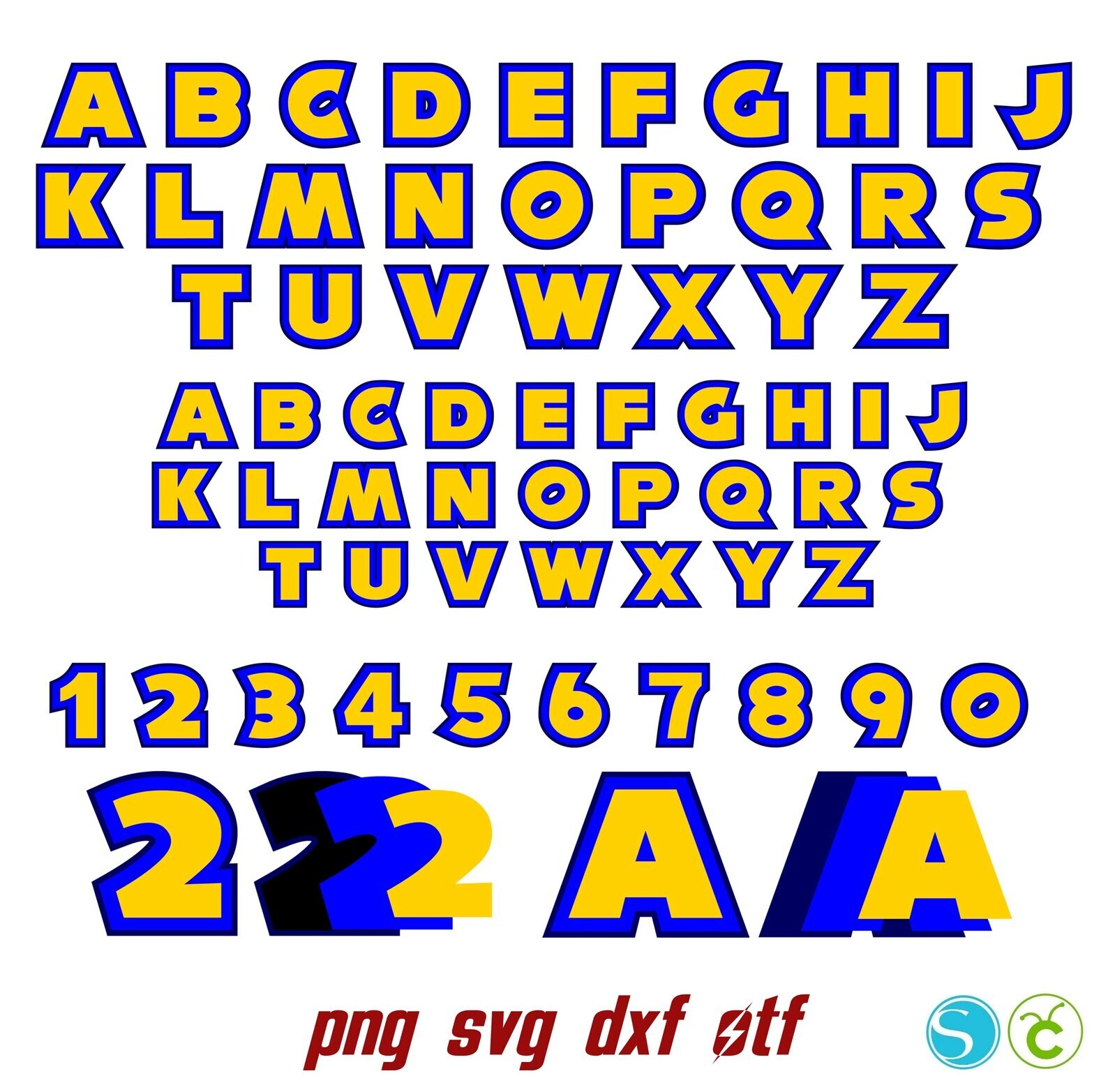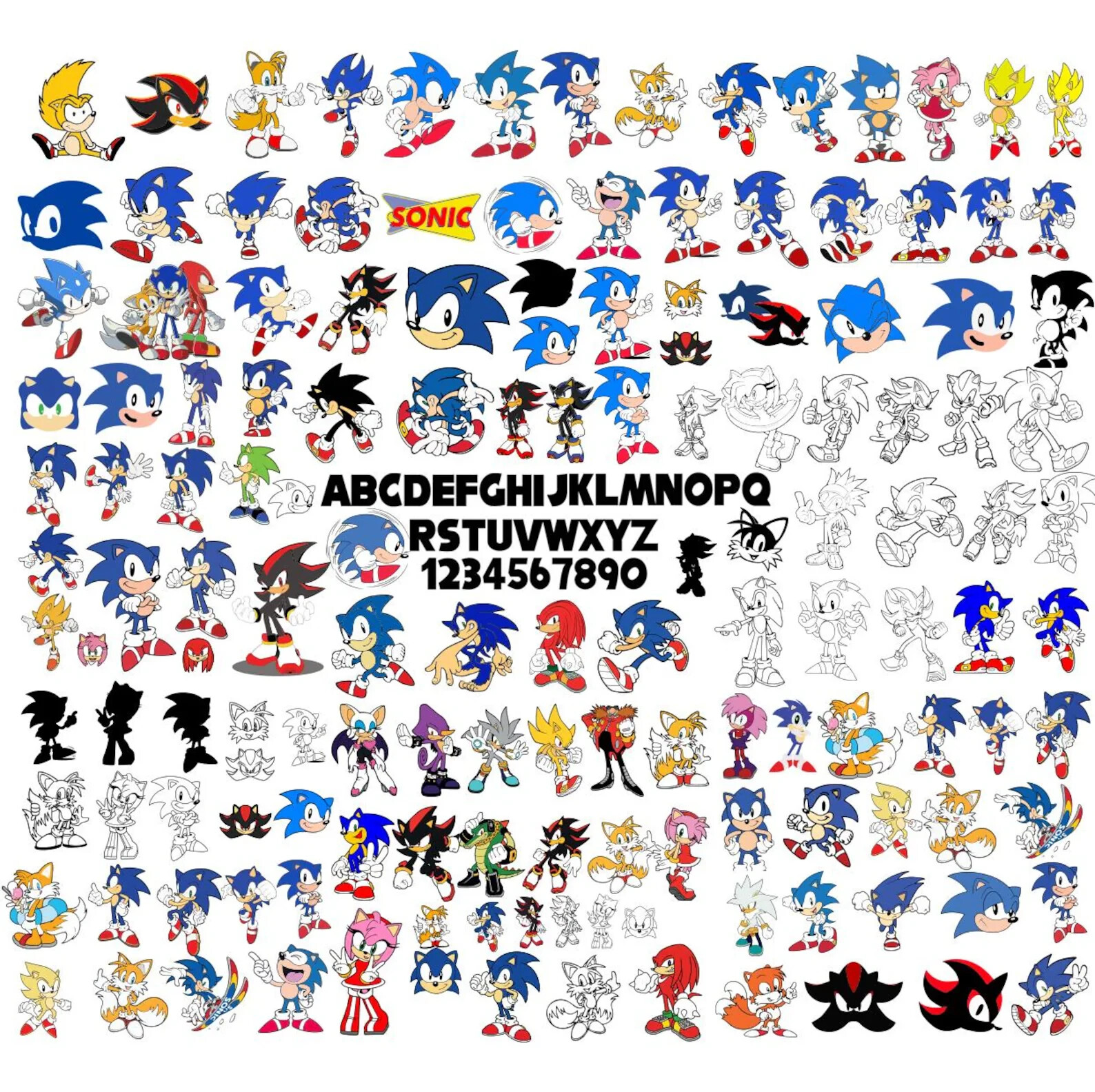
Choosing texture font design assets usually boils down to one question: do you want a narrowly themed lettering pack, or a broad library of fonts and graphics? These four digital bundles cover both, with listed prices spanning USD 3.00 to USD 9.89. Each is offered as a digital download, so the real trade-off is simply how much variety you need and how specific your project is. If you make Sonic birthday shirts, a dedicated SVG font bundle might be enough. If you run a print shop or creative side business, a larger multi-purpose collection could make more sense. This guide compares the four packs by what they include and which project type each one fits.
- The Sonic-themed bundle is the lower end of the price range and the most specialized choice if you need Sonic-style letters, SVGs, and an installable font.
- The Ultimate Digital Mega Bundle is the multi-asset option, combining fonts, clipart, SVG, and coloring-book pages in one download.
- The 25,000+ Premium Fonts Bundle is the most typography-focused package, with a huge font count and commercial-use permission in the title.
- The 100GB Graphics Mega Bundle is the broadest overall collection, aimed at designers who want templates, logos, and fonts together.
| Sonic-themed birthday shirt, layered vinyl, or Cricut letters | Sonic Bundle |
| Mix of fonts, clipart, SVG, and printable coloring pages | Ultimate Digital Mega Bundle |
| Typography-heavy work like logos, invitations, or branding | 25,000+ Premium Fonts Bundle |
| Broad template, logo, and font library for client work | 100GB Graphics Mega Bundle |
Sonic Bundle, Sonic Svg Cricut, Sonic Font, Sonic Letters Svg, Sonic Birthday
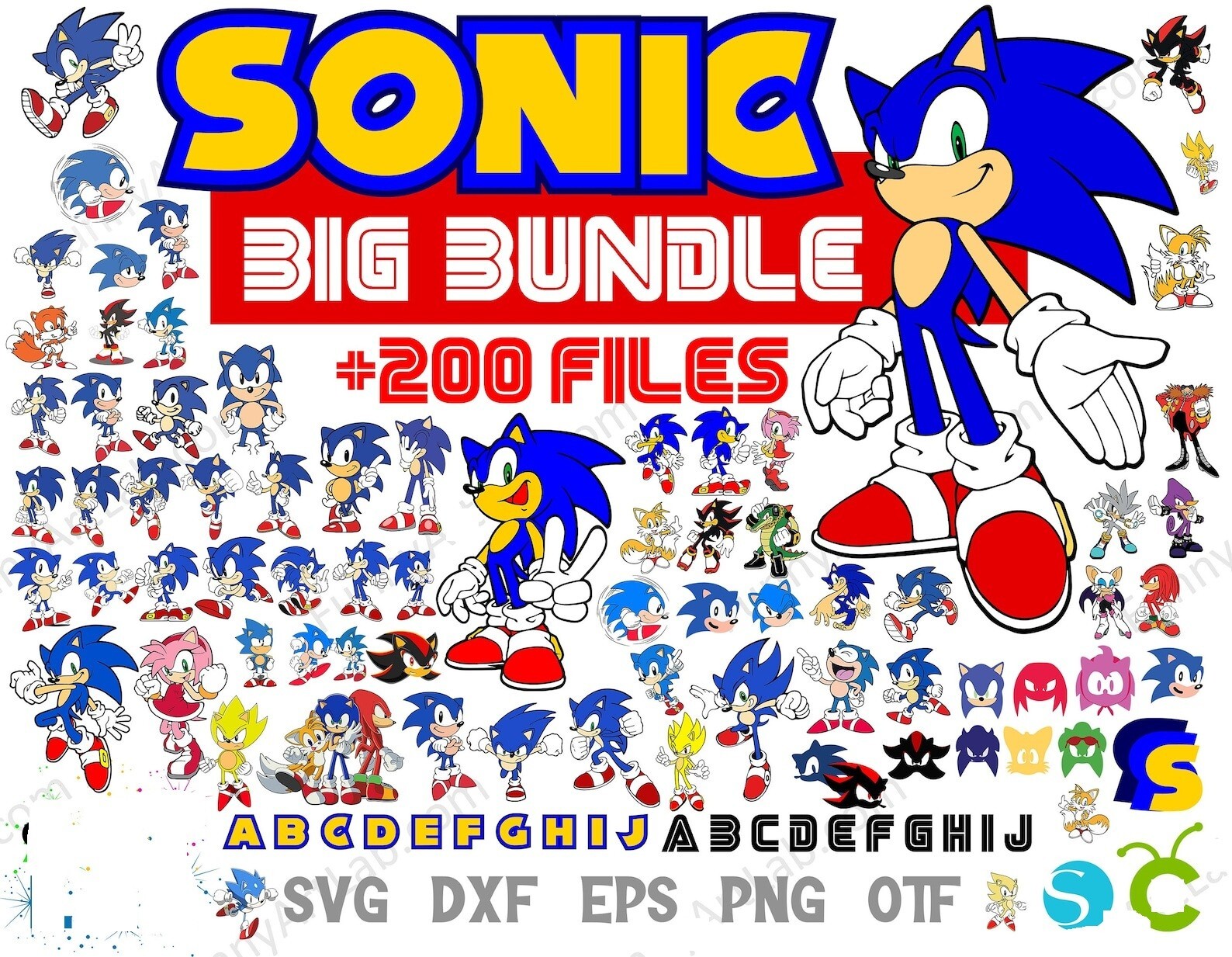
Start here if your project has a clear Sonic identity. This is the most narrowly focused pack in the group, and its description centers on a set of +200 SVG files, +200 PNG files at 300 dpi, +100 DXF files, +70 supporting files, and two OTF fonts. That combination makes it a practical fit for a Sonic birthday shirt, layered design, or vinyl project where you want matching lettering. The trade-off is the scope: it is a themed lettering set rather than a general design library, so you'll get Sonic-style assets but not a wide typography collection for other branding work.
Ultimate Digital Mega Bundle | Fonts + Clipart + SVG + Coloring Books
If you need multiple asset types in one download, this is the balanced pick. The bundle brings together clipart, coloring-book pages, premium fonts, and an SVG collection, which makes it useful for Etsy printables, small-business graphics, or content creation where you might switch between different file formats. The package is defined by its mix rather than a specific font count, so it is better suited to a creative who wants a varied stash than to someone who specifically needs a massive typography library. For a creator starting a side project, the categories are the real selling point.
25,000+ Premium Fonts Bundle, Commercial Use Allowed, Digital Download
If typography is the main need, this bundle is the one to compare against. The title alone promises 25,000+ fonts with commercial use allowed, and the description lists styles from script and serif to handwritten, brush, vintage, and decorative fonts. That makes it a strong fit for logo concepts, wedding invitations, branding, or print-on-demand designs where variety matters more than other assets. The main limitation is the focus: this listing is concentrated on fonts rather than SVG cut files, clipart, or templates, so those asset types are not part of what the bundle announces.
100GB Graphics Mega Bundle Design Templates Logos Fonts, Digital Download
If you want one large resource instead of several small ones, this is the broadest single package here. The description points to a 100GB+ collection aimed at graphic designers, freelancers, print shops, digital agencies, social media marketers, POD sellers, and Etsy sellers, with design templates, logos, and fonts as part of the package. That breadth makes it appealing when you handle many different client jobs or product types. The limitation is purely practical: at the top of the listed price range, it is more than you need if your only goal is a single-themed project like a birthday shirt or a quick font download.
Final recommendation by use case
If you're making Sonic-specific apparel or vinyl, the Sonic Bundle is the direct match because it has the themed SVG, PNG, DXF, and OTF files already bundled together. If you're a creator or small seller who wants fonts plus clipart, coloring pages, and SVG in one place, the Ultimate Digital Mega Bundle gives you that mix without leaving the asset category. If fonts are the entire point, go with the 25,000+ Premium Fonts Bundle and use its commercial-use allowance across different types of projects. If you run a design business that needs templates, logos, and fonts for varied clients, the 100GB Graphics Mega Bundle is the broadest match on this list.